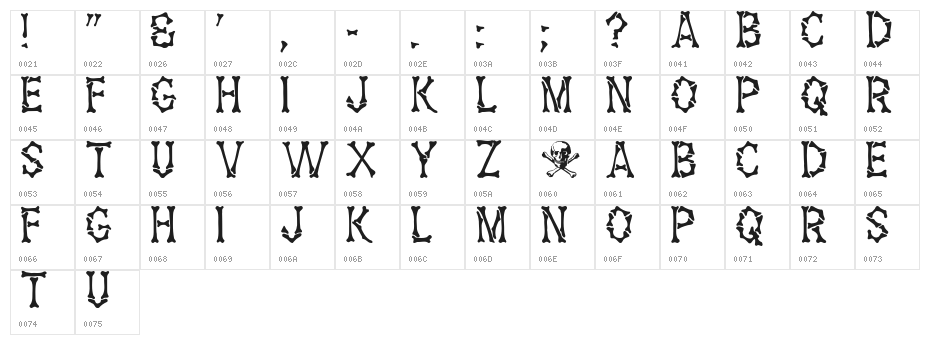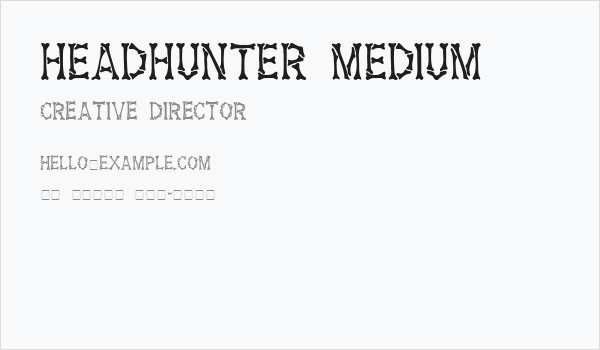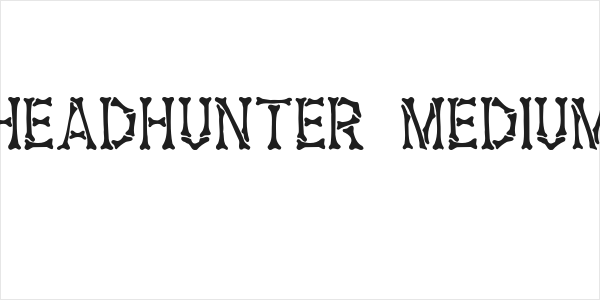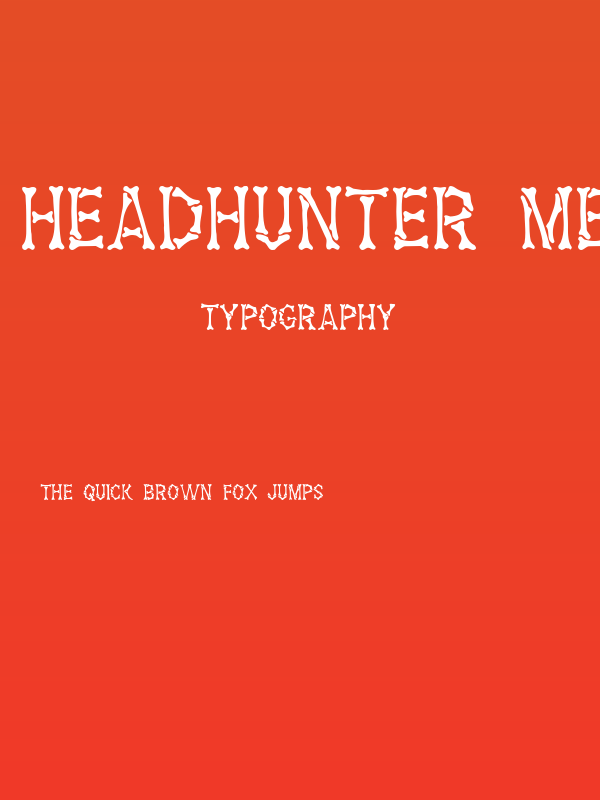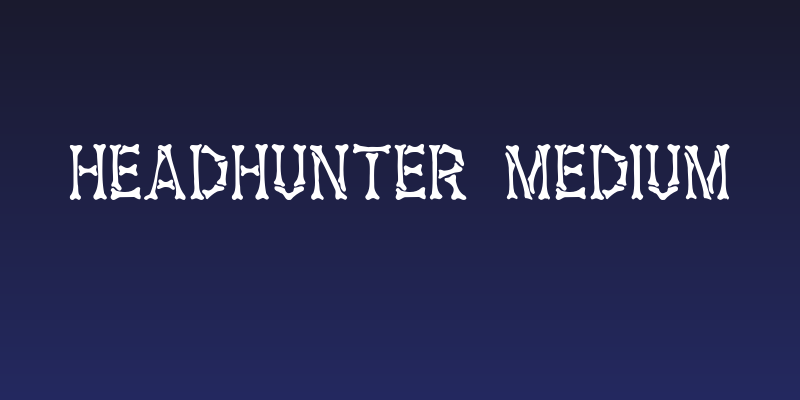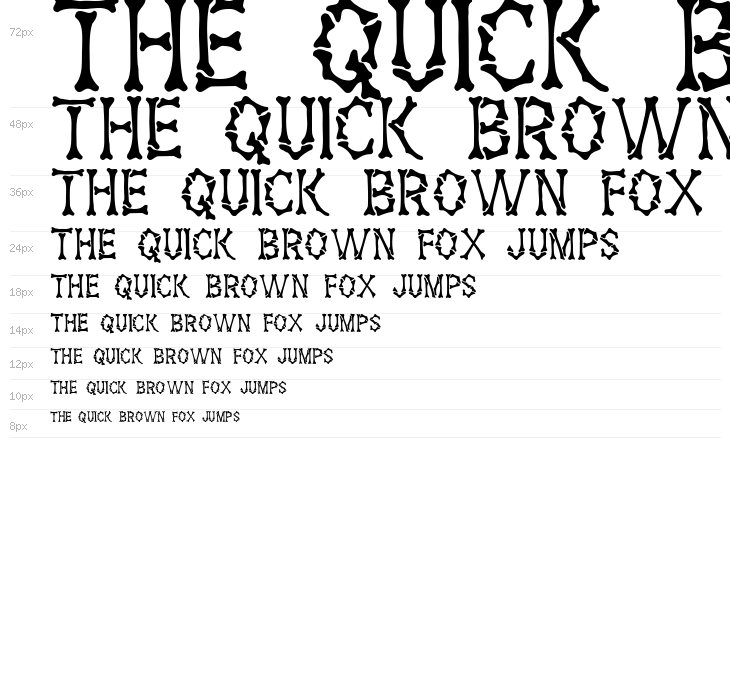
Headhunter Medium Font
Headhunter Medium Description
This font features a bold and edgy design with a distinctive, rugged appearance. The characters are crafted with sharp, angular edges and irregular shapes, giving them a unique and somewhat aggressive look. The style is reminiscent of a hand-carved or distressed aesthetic, making it stand out with its dramatic flair. The uppercase letters are particularly striking, with their bold forms and intricate details. This font is ideal for projects that require a strong visual impact, such as posters, album covers, or branding for edgy or alternative brands. Its decorative nature makes it less suitable for body text but perfect for headlines or titles that need to capture attention.
| Proposed Projects | Posters, album covers, branding for alternative brands, headlines. |